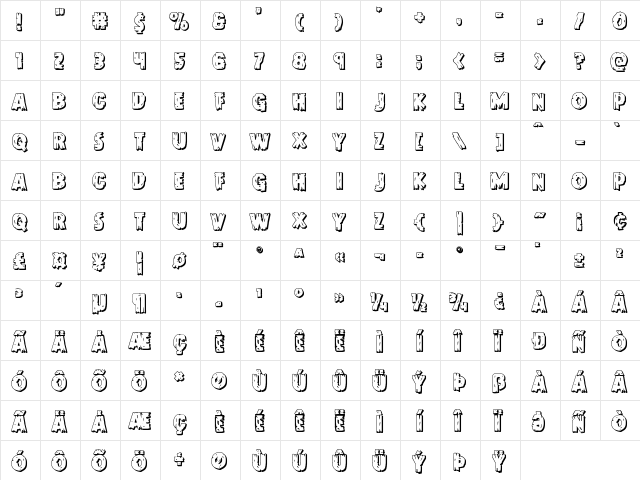
Dokter Monstro 3D Regular
Design Context for Dokter Monstro 3D Typeface
Dokter Monstro 3D is a composed and adaptable typeface that performs quietly and consistently across a wide range of design contexts.